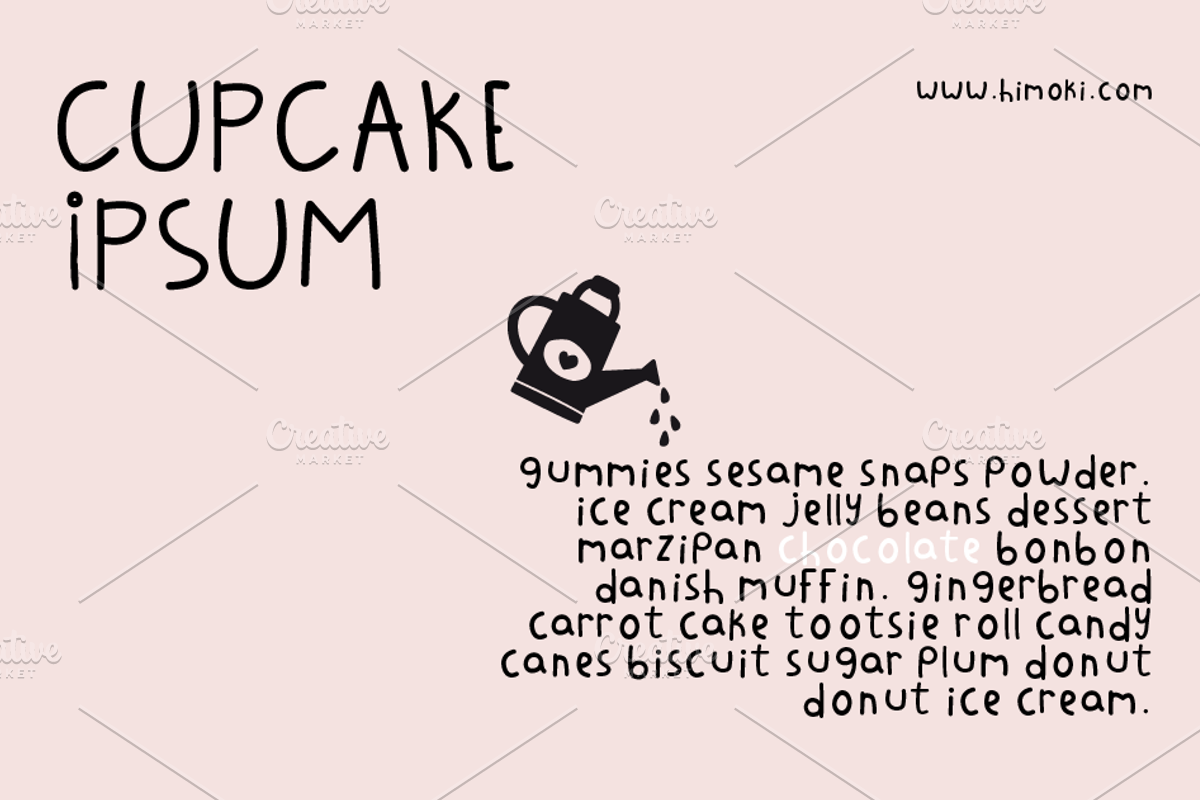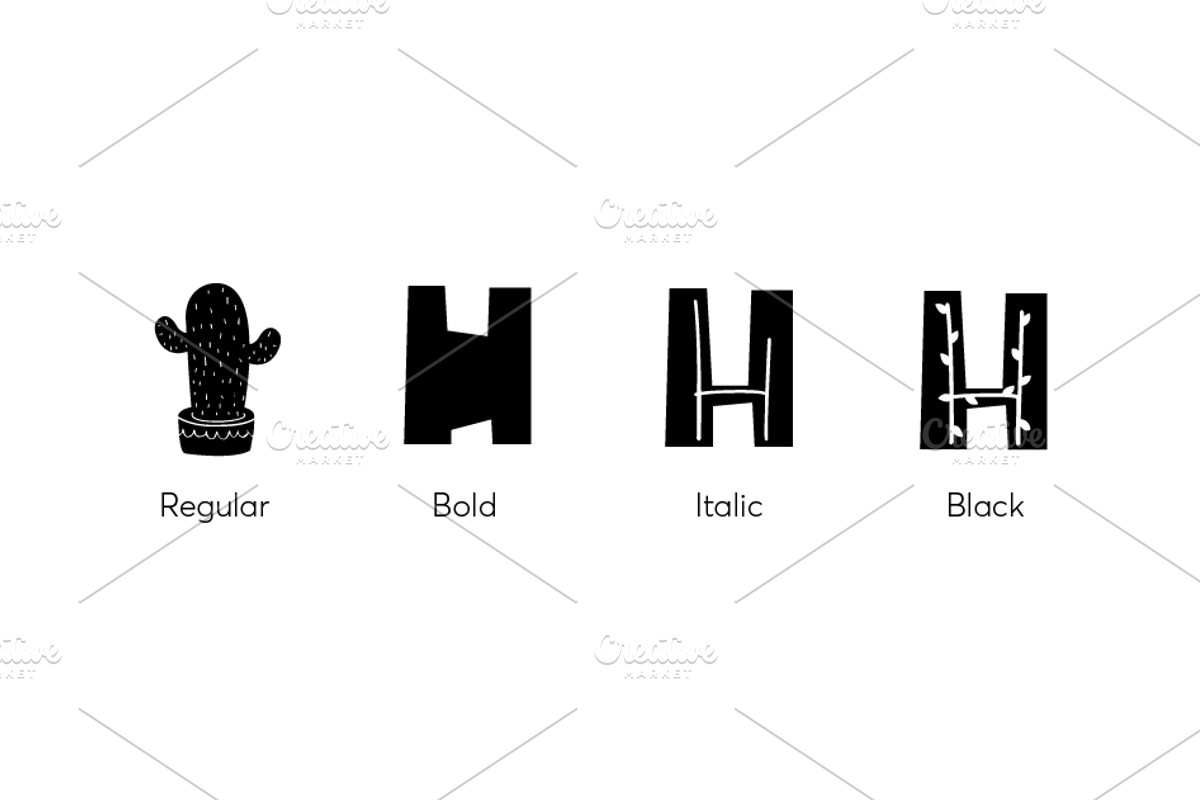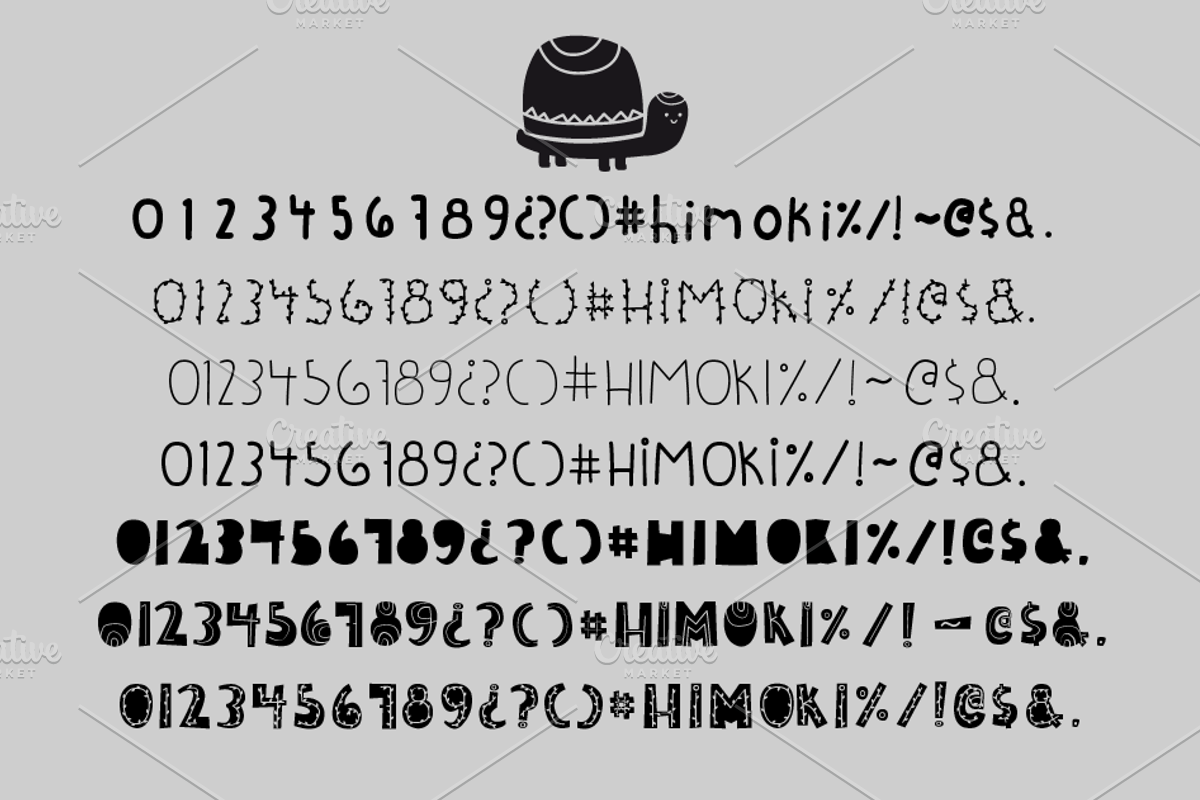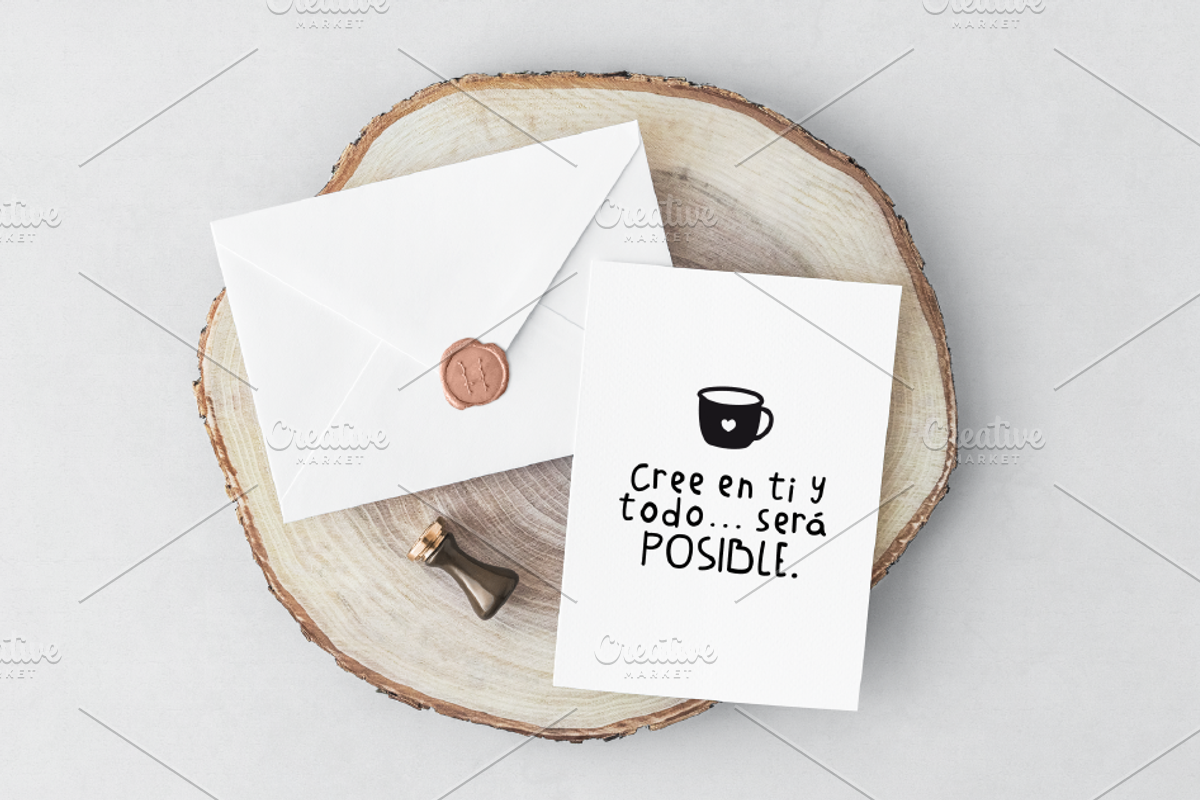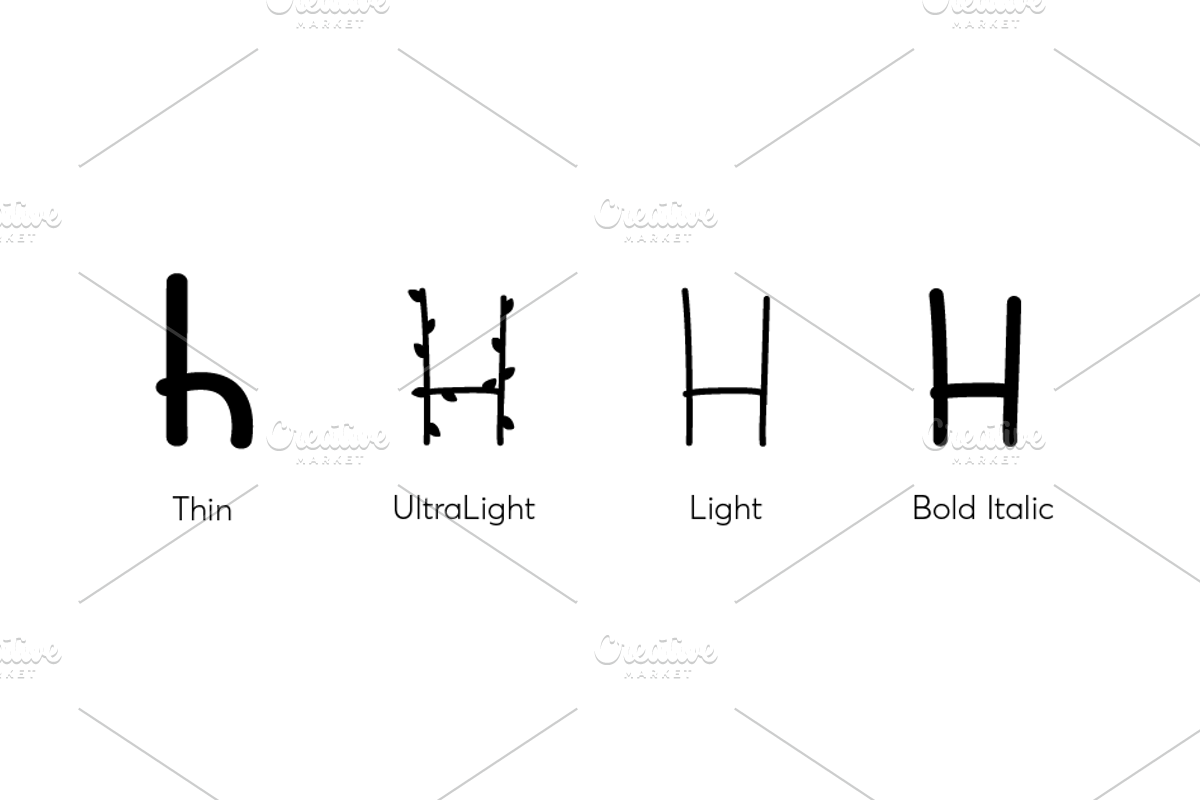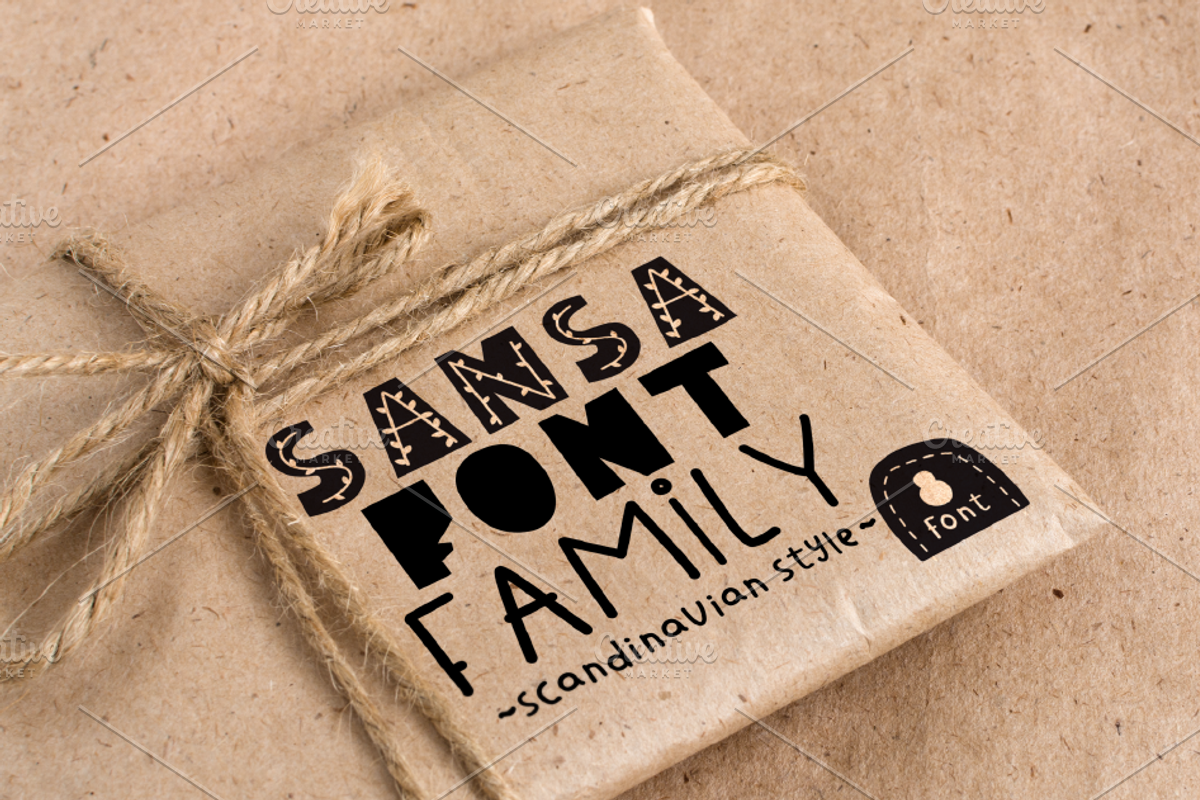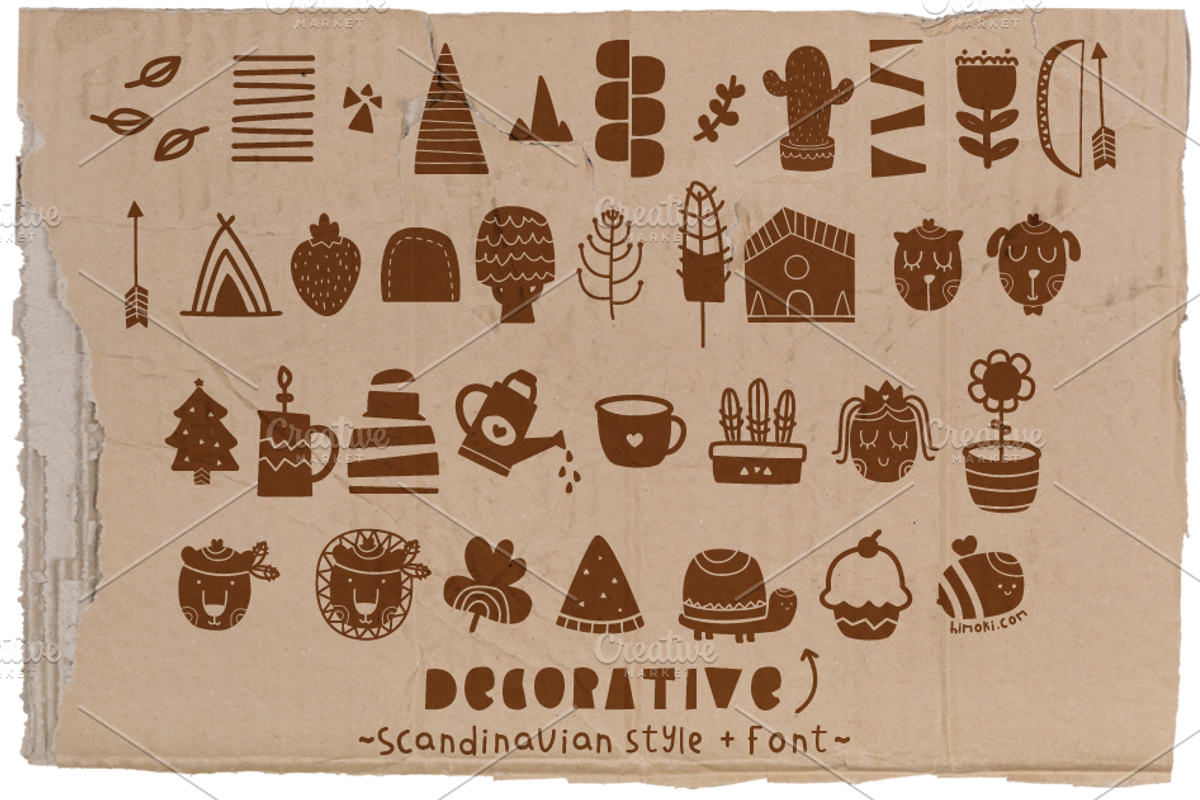
Sansa font family-8font-Scandinavian
SANSA font family by Himoki
Scandinavian style, great for design and compositions. //otf, ttff file //8 fonts
Sansa font family-8font-Scandinavian by himoki fits naturally into Branding, posters, packaging, typography.